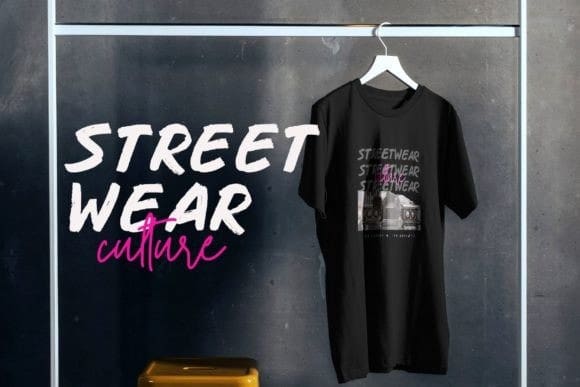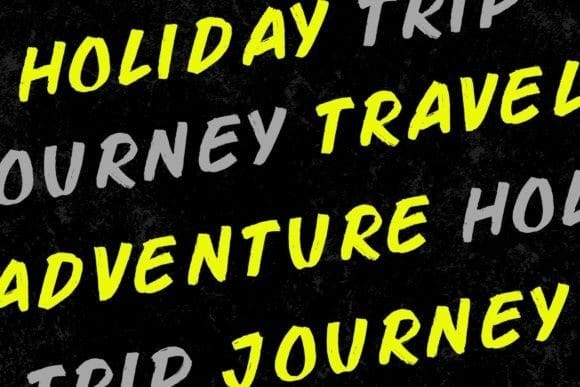
Brush Squad Font
Brush Squad Font, is a dry brush display typeface. Very suitable for titles, logos, typography, clothes, magazines, brochures, packaging, and much more. It is perfect for making your designs more modern and professional.